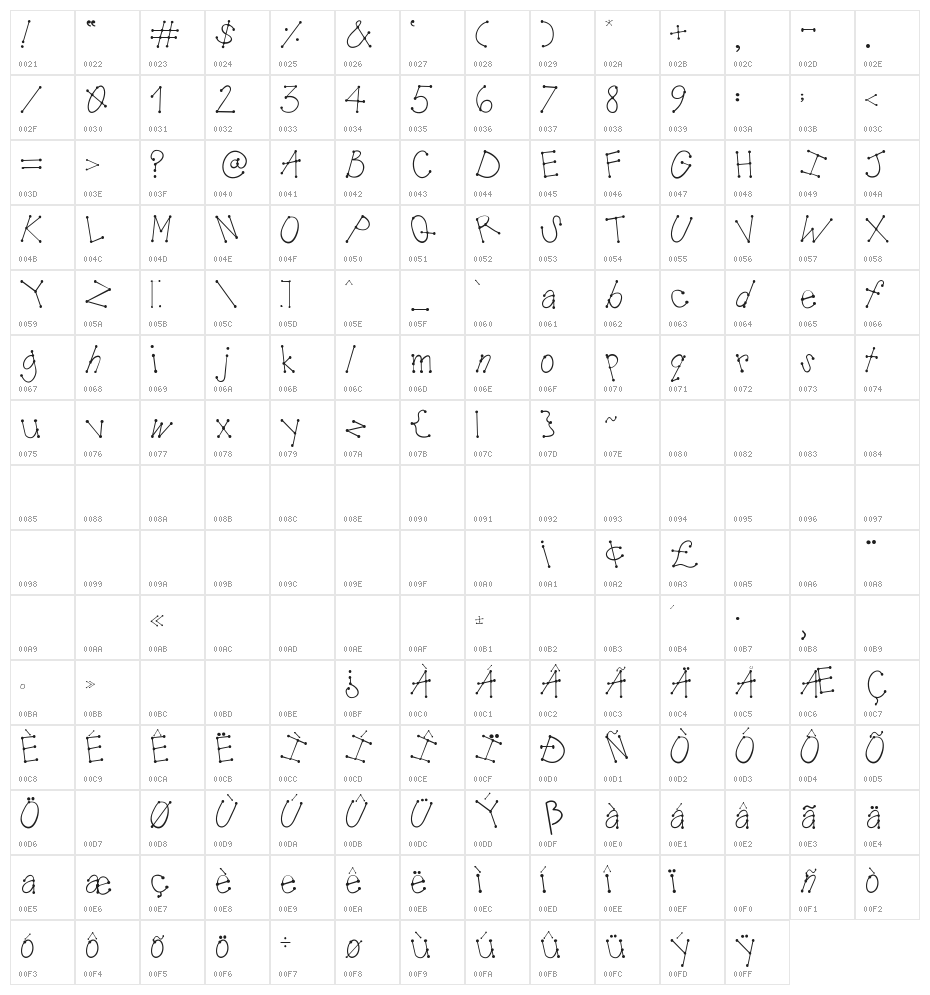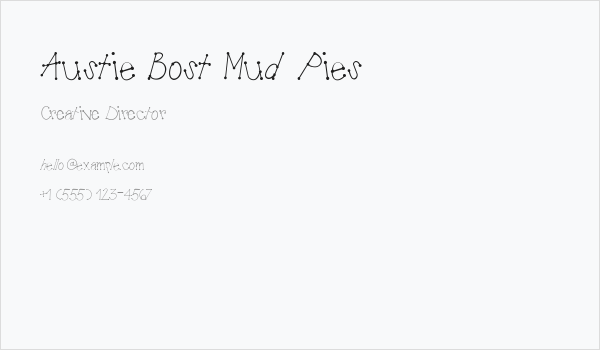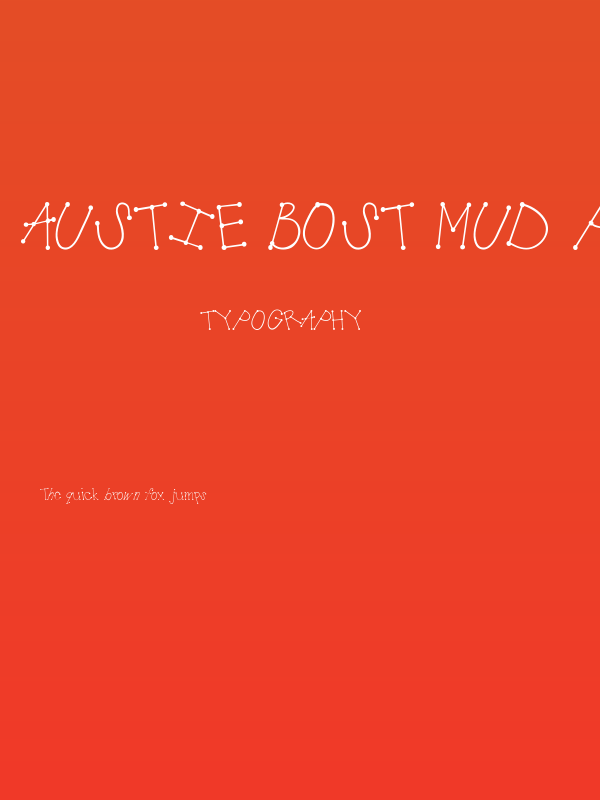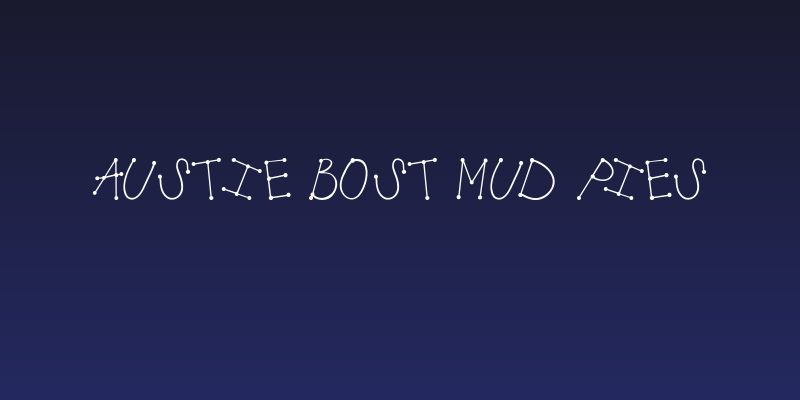
Austie Bost Mud Pies Font
Austie Bost Mud Pies Description
This playful and whimsical font features a unique design where each character is composed of dots connected by thin lines, resembling a constellation or a dot-to-dot drawing. The uppercase and lowercase letters maintain a consistent style, with rounded edges and a casual, hand-drawn appearance. The numbers and special characters follow the same theme, adding to the font's cohesive look. This font exudes a sense of fun and creativity, making it ideal for projects that require a light-hearted and informal touch.
Overall StyleWhimsical, Playful
Use CaseHeadlines, Logos, Invitations
Proposed ProjectsIdeal for children's books, playful invitations, educational materials, and creative branding.